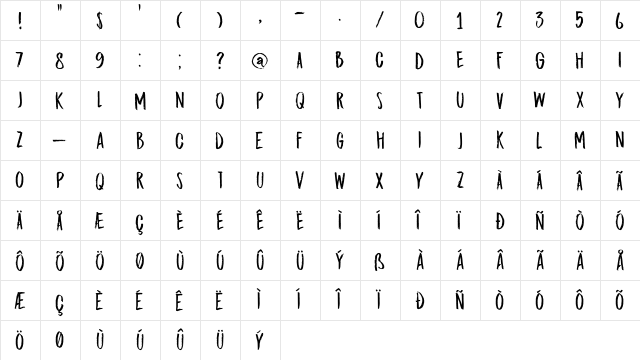
DK Midnight Chalker Regular
| Foundry | David Kerkhoff |
| Designer | David Kerkhoff |
Design Context for DK Midnight Chalker Typeface
DK Midnight Chalker is a composed and adaptable typeface that performs quietly and consistently across a wide range of design contexts.